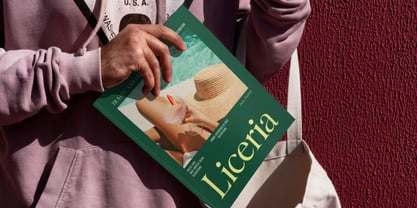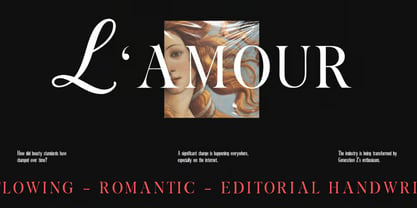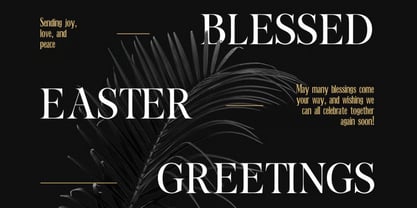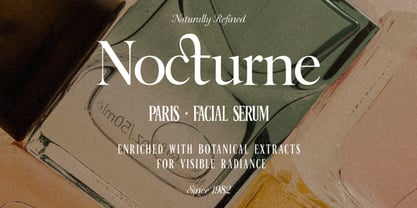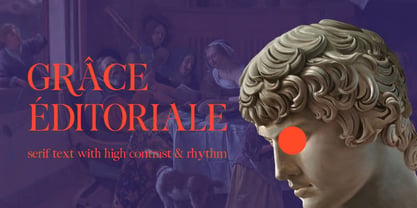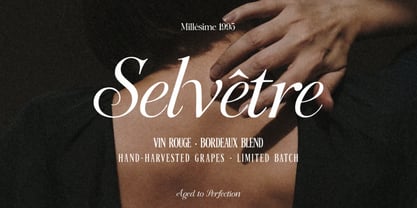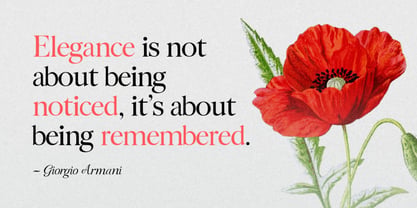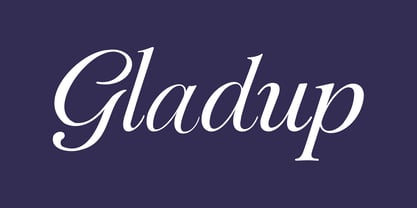
Gladup
Gladup is an elegant editorial script font inspired by the sophisticated visual language of 1960s French editorial design and the timeless beauty of Renaissance typography. Combining expressive script details with refined editorial aesthetics, Gladup brings together classic elegance, artistic personality, and modern sophistication in one distinctive typeface.
Designed for creatives who want typography that feels both luxurious and expressive, Gladup creates a graceful visual presence that works beautifully across branding, editorial, packaging, fashion, and lifestyle projects. Its flowing handwriting-inspired character adds a sense of romance and personality, while its refined structure provides the polished appearance needed for professional design.
Whether you're developing a luxury brand identity, fashion campaign, magazine layout, romantic packaging, boutique logo, or sophisticated social media design, Gladup gives you the flexibility to create typography that feels timeless, artistic, and memorable.
• Elegant Editorial Style: Designed to bring sophistication and visual refinement to headlines and display typography.
• Expressive Script Character: Flowing, handwriting-inspired forms add personality and artistic flair.
• 1960s French Inspiration: Captures the charm and sophistication of classic French editorial aesthetics.
• Renaissance Typography Influence: Incorporates timeless typographic elegance into a contemporary design system.
• Strong Visual Contrast: Creates dramatic and luxurious typography for impactful compositions.
• Clean & Refined Structure: Balances expressive details with a polished editorial appearance.
• Versatile Design System: Works beautifully across branding, editorial, packaging, fashion, and lifestyle projects.
• Timeless & Contemporary: Combines vintage inspiration with a modern creative sensibility.
• Luxury Branding: Create sophisticated logos and premium brand identities with an editorial character.
• Fashion & Editorial Design: Perfect for fashion magazines, lookbooks, campaigns, and luxury headlines.
• Magazine Layouts: Add an artistic and sophisticated touch to covers, titles, and feature pages.
• Romantic Packaging: Ideal for beauty products, perfumes, candles, boutique goods, and elegant packaging.
• Boutique Branding: Create distinctive identities for fashion, lifestyle, beauty, and creative businesses.
• Wedding & Event Design: Perfect for invitations, menus, stationery, and romantic event branding.
• Social Media Graphics: Add a refined editorial personality to lifestyle posts, quotes, and promotional designs.
• Advertising Campaigns: Create memorable headlines and premium promotional artwork.
Bring timeless editorial sophistication to your designs with Gladup—an elegant script font inspired by 1960s French editorial design and Renaissance typography. With its expressive handwriting character, refined structure, and luxurious visual personality, Gladup is perfect for fashion branding, luxury logos, magazine layouts, romantic packaging, boutique identities, wedding designs, advertising, and premium editorial projects.